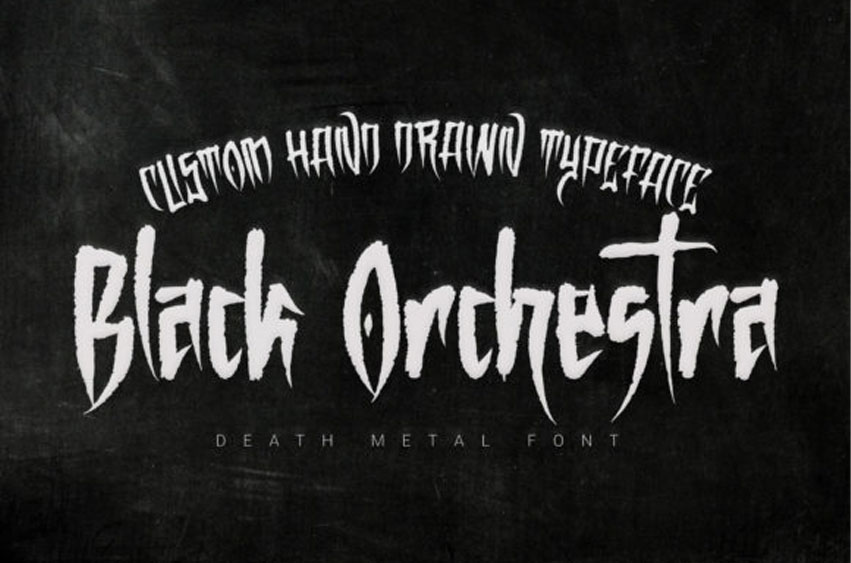
Black Orchestra Font is a heavy-metal inspired blackletter font that will turn any horror project into a standout!
It’s a perfect choice for heavy metal music logos, album art, or promotional material.